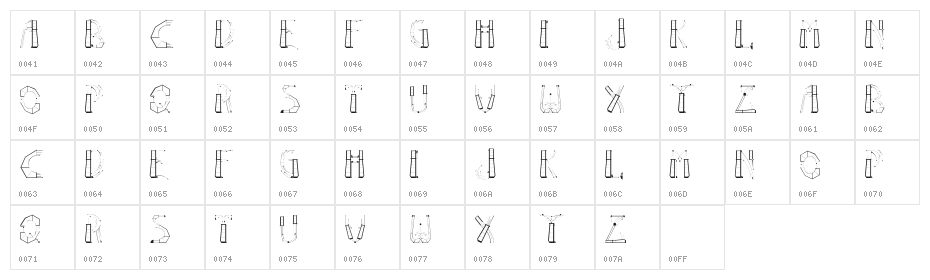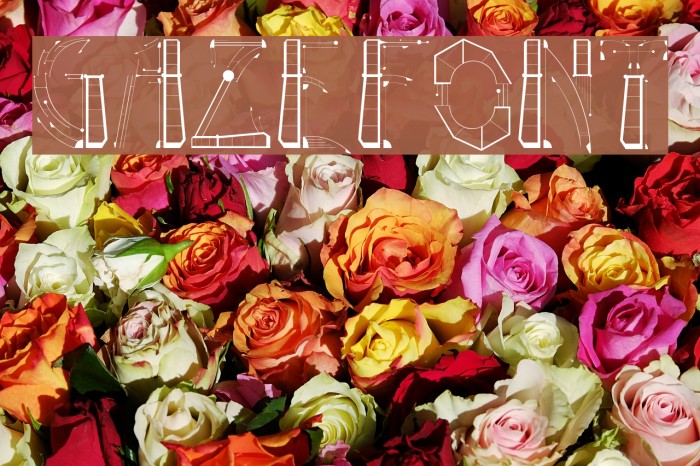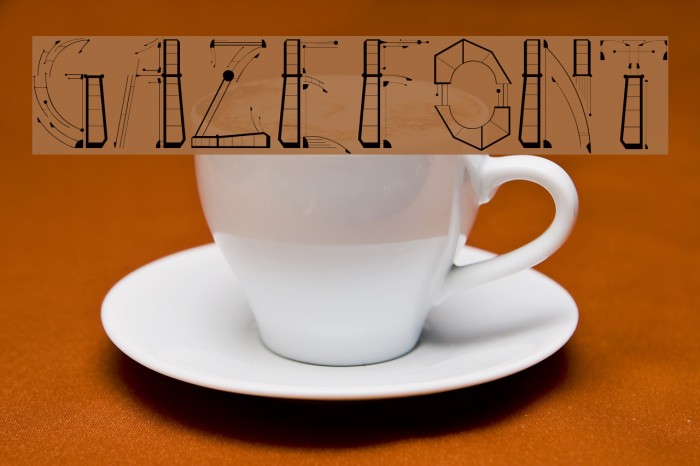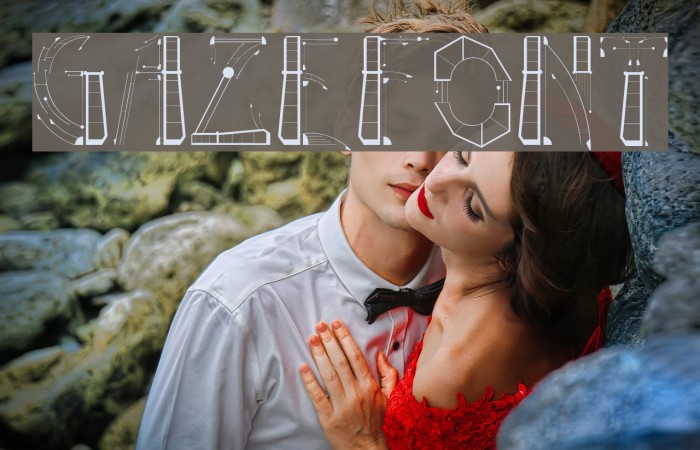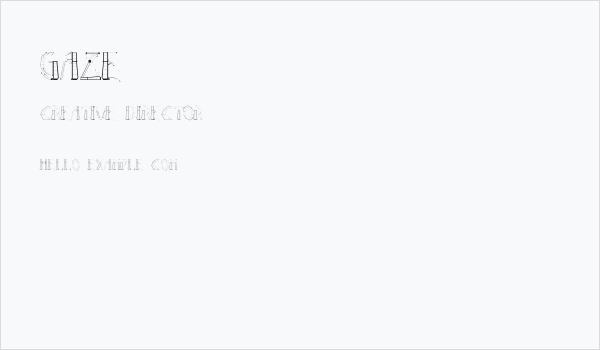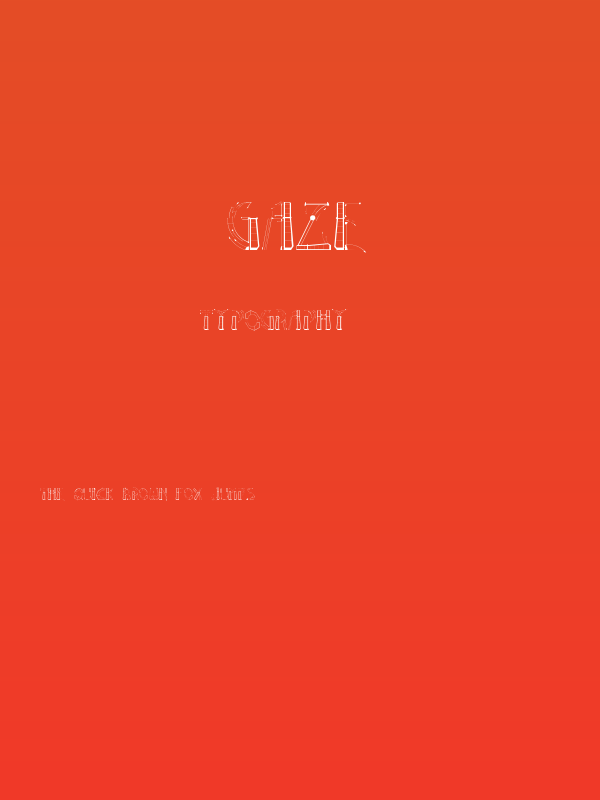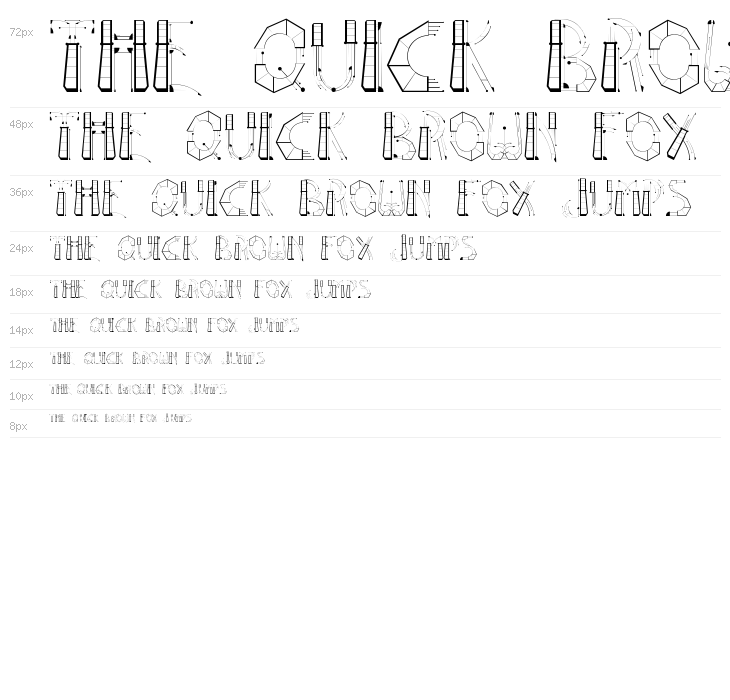
Gaze Font
Gaze Description
This font features a highly decorative and geometric design, with each character constructed from a series of lines and shapes that resemble technical drawings or architectural blueprints. The letters are composed of straight lines, curves, and dots, giving them a mechanical and structured appearance. The use of negative space and intricate detailing adds to the complexity and uniqueness of the font. It is visually striking and demands attention, making it suitable for creative and artistic projects where a bold statement is desired.
| Use Case | Logos, Posters, Artistic projects |
| Proposed Projects | Ideal for use in graphic design projects, posters, album covers, and branding that require a modern and artistic touch. |